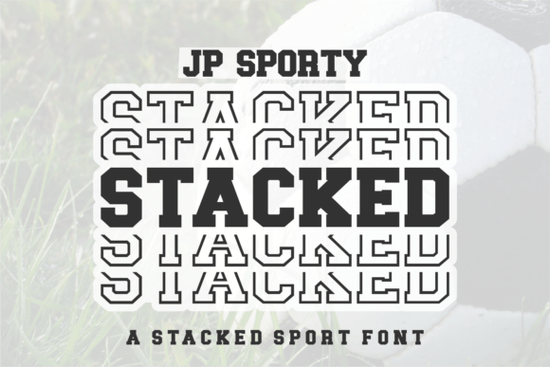
If you're looking for a bold, sporty font that gives your designs an instant edge, JP Sporty Stacked Font is a solid choice. It’s not just one font it’s two in one. Use uppercase letters for a strong, solid look, and switch to lowercase for a clean, outlined style. This simple twist makes it super flexible for all kinds of projects, especially those with a dynamic or athletic vibe.
What makes JP Sporty Stacked Font stand out?
Unlike many display fonts that lock you into one style, this one lets you play with contrast and visual weight right inside the same design. Whether you’re working on a team jersey, event poster, or movie title, the ability to mix solid and outlined letters adds depth without needing extra layers or effects.
The font works well in both digital and print formats, so it’s ideal for crafters, small business owners, and anyone using print-on-demand platforms. You can use it for logos, book covers, game graphics, headlines, and even social media banners. Its sporty energy fits naturally with themes like fitness, competitions, documentaries, and action films.
How can I use it in my projects?
Here are some real-world ways designers and creators are using it:
- Team jerseys and uniforms: The bold uppercase version looks sharp on shirts and caps.
- Event posters: Pair the outlined lowercase with a dark background for a modern, athletic feel.
- Book covers and movie titles: Great for thrillers, sports dramas, or youth-focused stories.
- Branding and logos: Use the stacked style to make your business name pop perfect for gyms, sports academies, or apparel brands.
- Printable designs: Ideal for stickers, t-shirts, mugs, and wall art when used with vibrant colors.
Before you start, make sure you’ve tested the font at different sizes. Some display fonts lose clarity when scaled down, but JP Sporty Stacked holds up well even in smaller text areas like captions or footnotes.